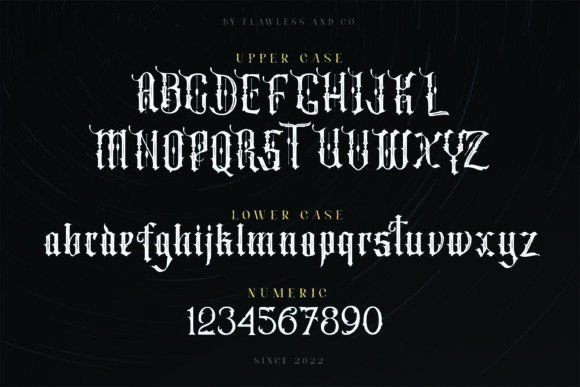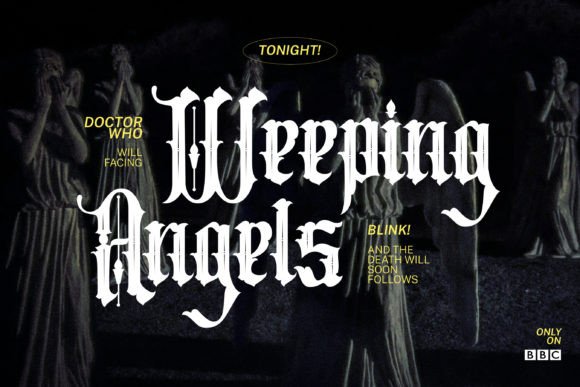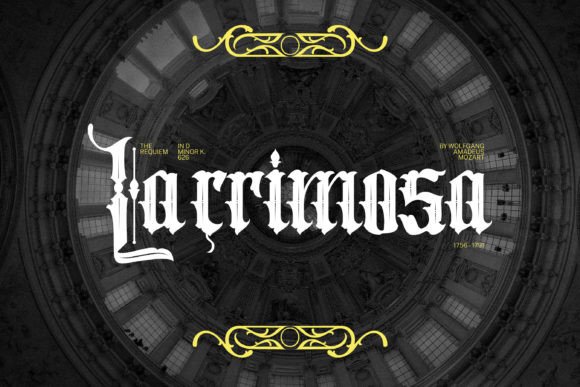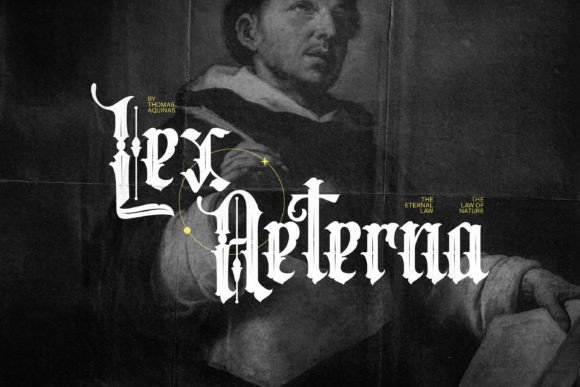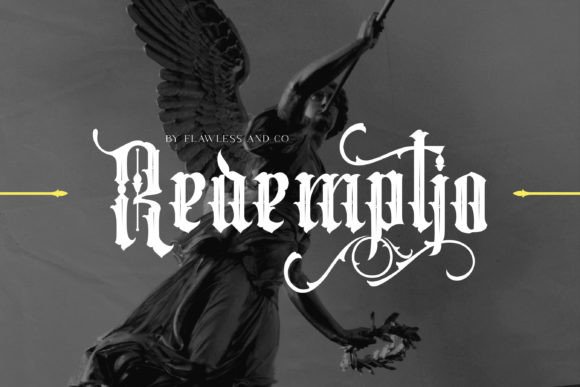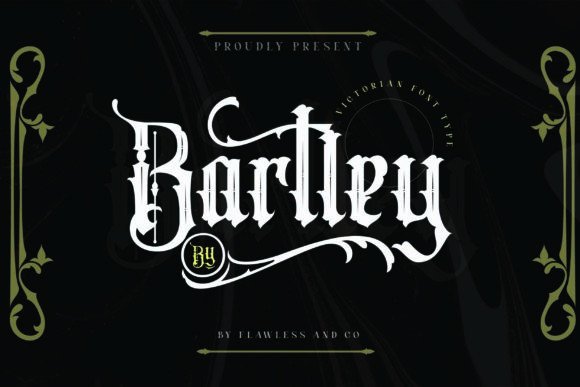
Introducing Bartley: A Striking Blackletter Font with a Modern Edge
In the world of typography, few fonts manage to capture the essence of Gothic elegance while also exuding a sense of modern sophistication. Bartley, a stunning blackletter font, is one such typeface that seamlessly merges tradition with a contemporary twist. Meticulously crafted with versatility in mind, Bartley is the perfect addition to any designer’s arsenal, offering a wide range of creative possibilities.
The Inspiration Behind Bartley
Bartley draws inspiration from the rich history of blackletter typography, which dates back to the Middle Ages. Characterized by its dramatic flourishes and intricate letterforms, blackletter fonts were often used in medieval manuscripts and Gothic architecture. However, Bartley takes this classic style and infuses it with a modern edge, making it suitable for a variety of design applications.
Design Features of Bartley
Bartley’s design is a masterclass in balancing tradition with innovation. Each letterform is carefully crafted to showcase the distinctive features of blackletter typography, including:
- Intricate flourishes: Bartley’s letters are adorned with elegant flourishes that add a touch of sophistication to any design.
- Classic letterforms: The font’s letterforms are rooted in traditional blackletter typography, ensuring a sense of authenticity and heritage.
- Modern spacing and kerning: Bartley’s spacing and kerning are optimized for modern digital applications, making it perfect for use in a variety of contexts.
Versatility and Creative Applications
Bartley’s versatility is one of its most compelling features. This font can be used in a wide range of creative projects, including:
- Branding and logos: Bartley’s unique blend of tradition and modernity makes it an excellent choice for brands looking to establish a distinctive identity.
- Packaging and labels: The font’s Gothic elegance lends itself perfectly to packaging and label design, adding a touch of sophistication to any product.
- Advertising and marketing materials: Bartley’s striking appearance makes it an excellent choice for headlines and titles in advertising and marketing materials.
- Stationery and invitations: The font’s classic style makes it suitable for use in stationery, invitations, and other formal correspondence.
Why Choose Bartley?
With so many fonts available, why choose Bartley? Here are just a few reasons why this striking blackletter font stands out:
- Unique blend of tradition and modernity: Bartley offers a refreshing take on traditional blackletter typography, making it perfect for designers looking to create something distinctive.
- High-quality design: Each letterform is meticulously crafted to ensure a high level of quality and attention to detail.
- Versatility: Bartley’s versatility makes it suitable for use in a wide range of creative projects.
Bartley is a striking blackletter font that offers a unique blend of tradition and modernity. With its intricate flourishes, classic letterforms, and modern spacing and kerning, this font is perfect for designers looking to add a touch of Gothic elegance to their designs. Whether you’re working on a branding project, packaging design, or marketing materials, Bartley is an excellent choice. So why not introduce Bartley to your design toolkit today and discover the creative possibilities for yourself?